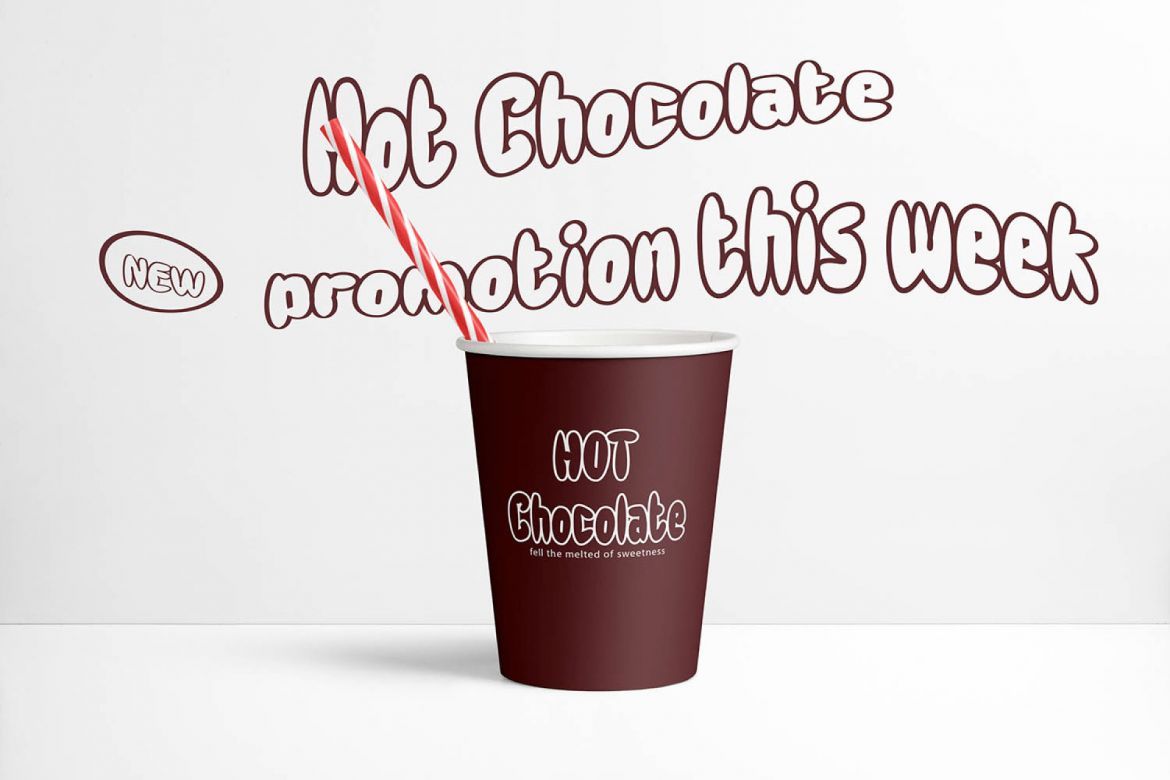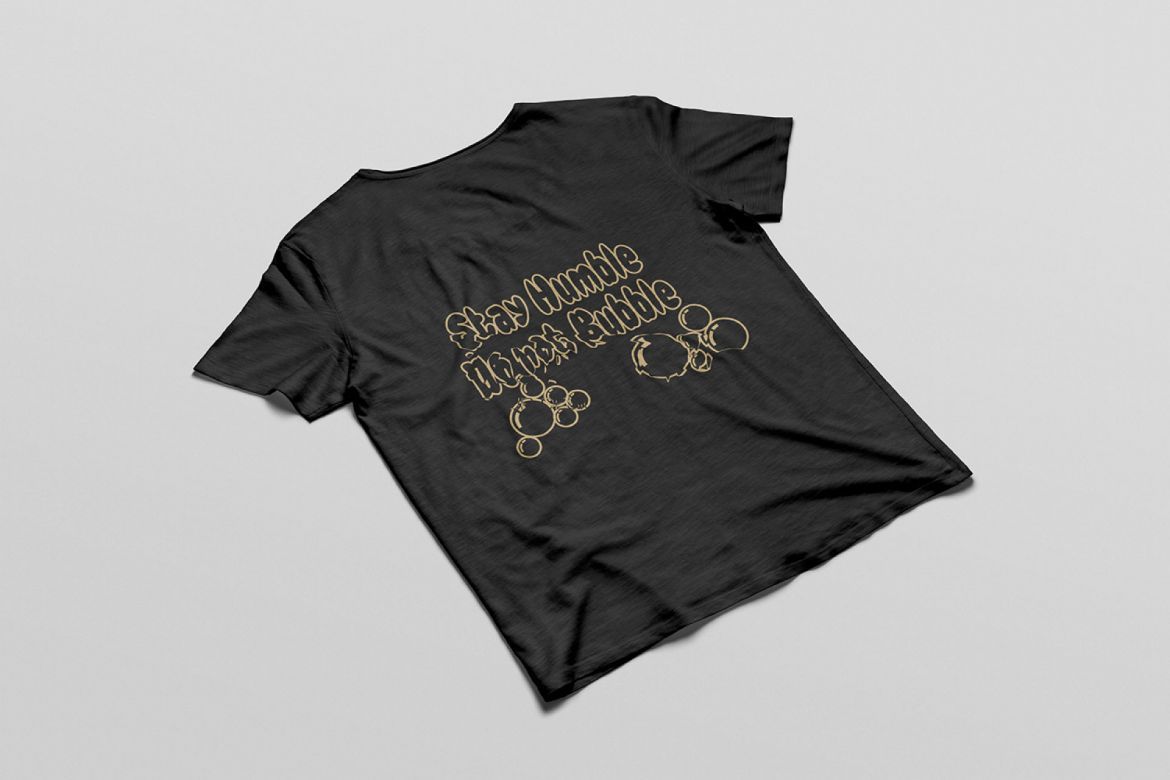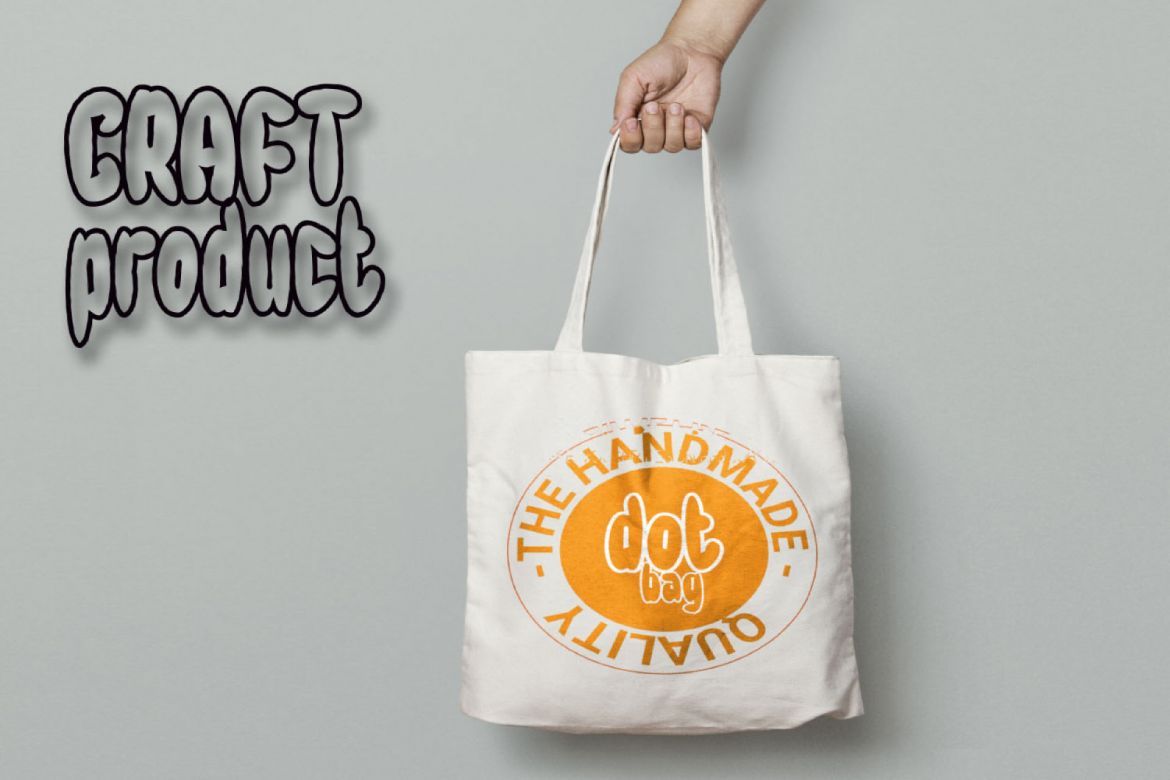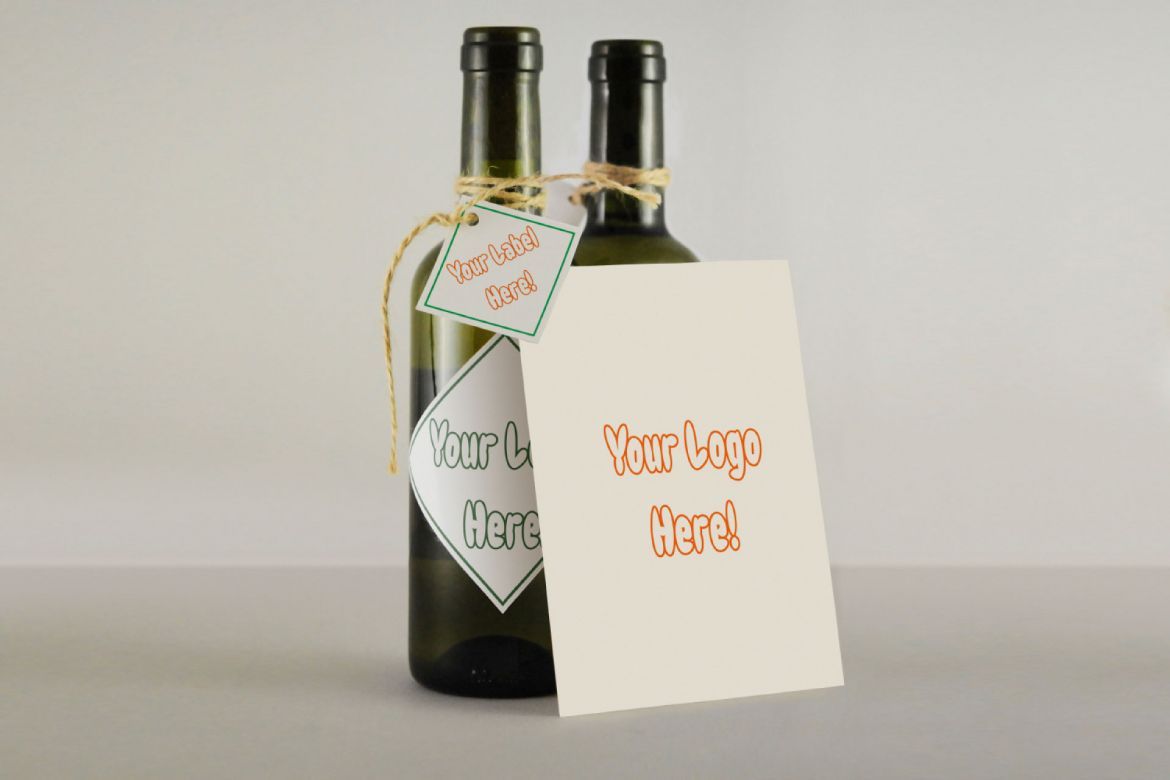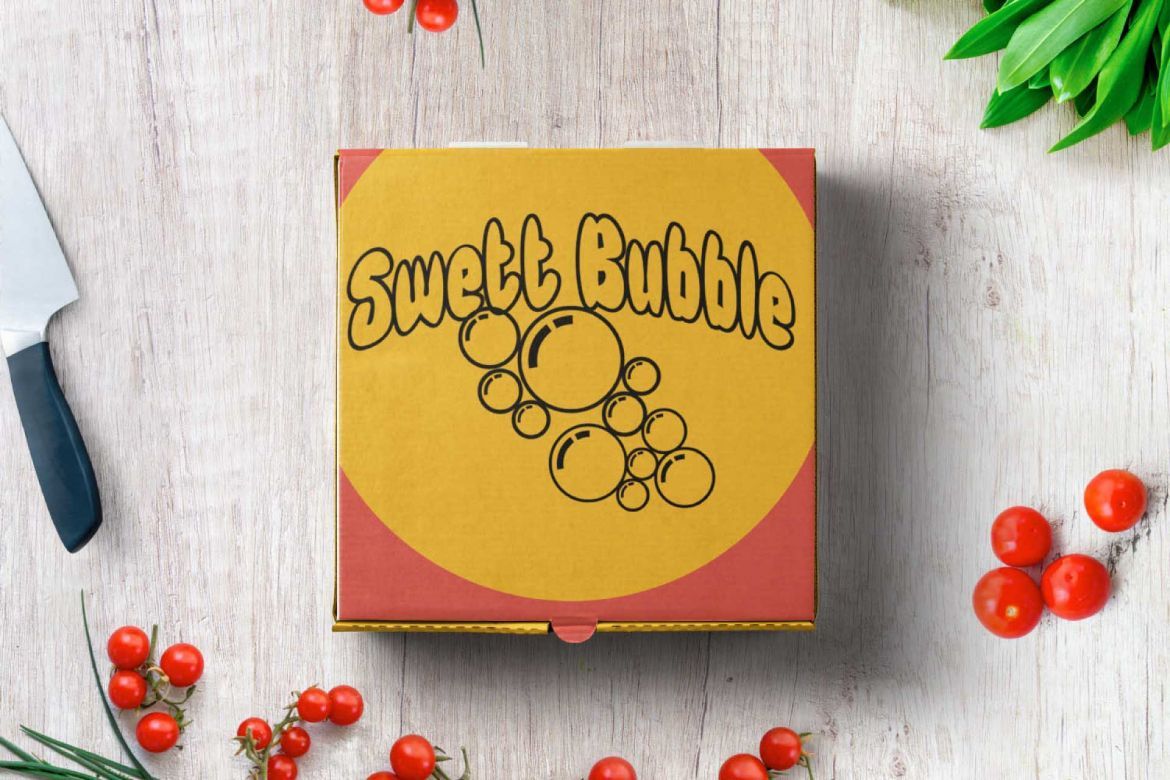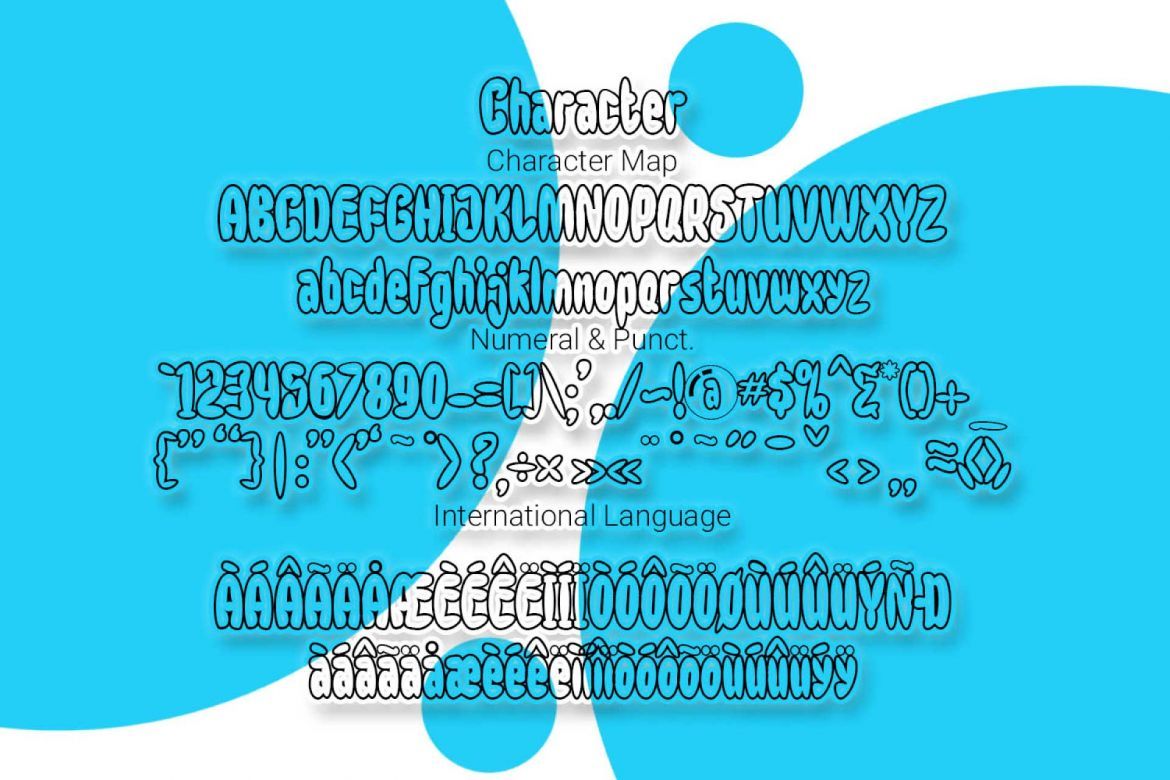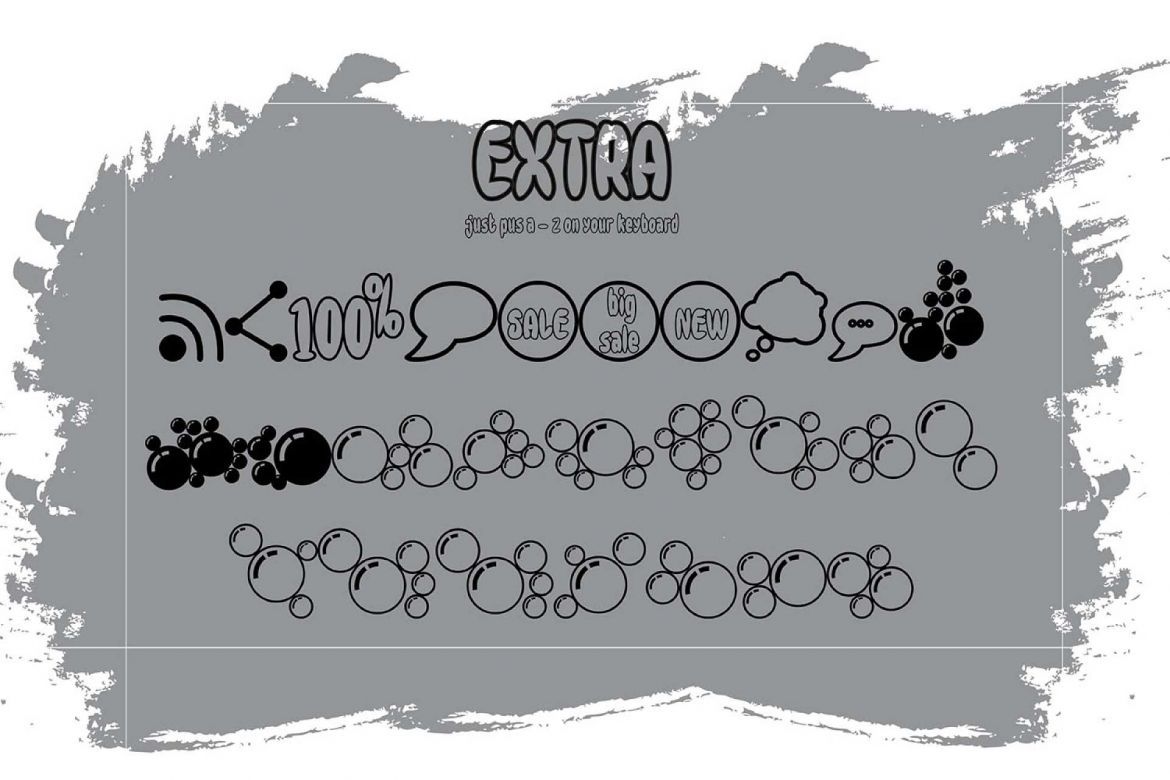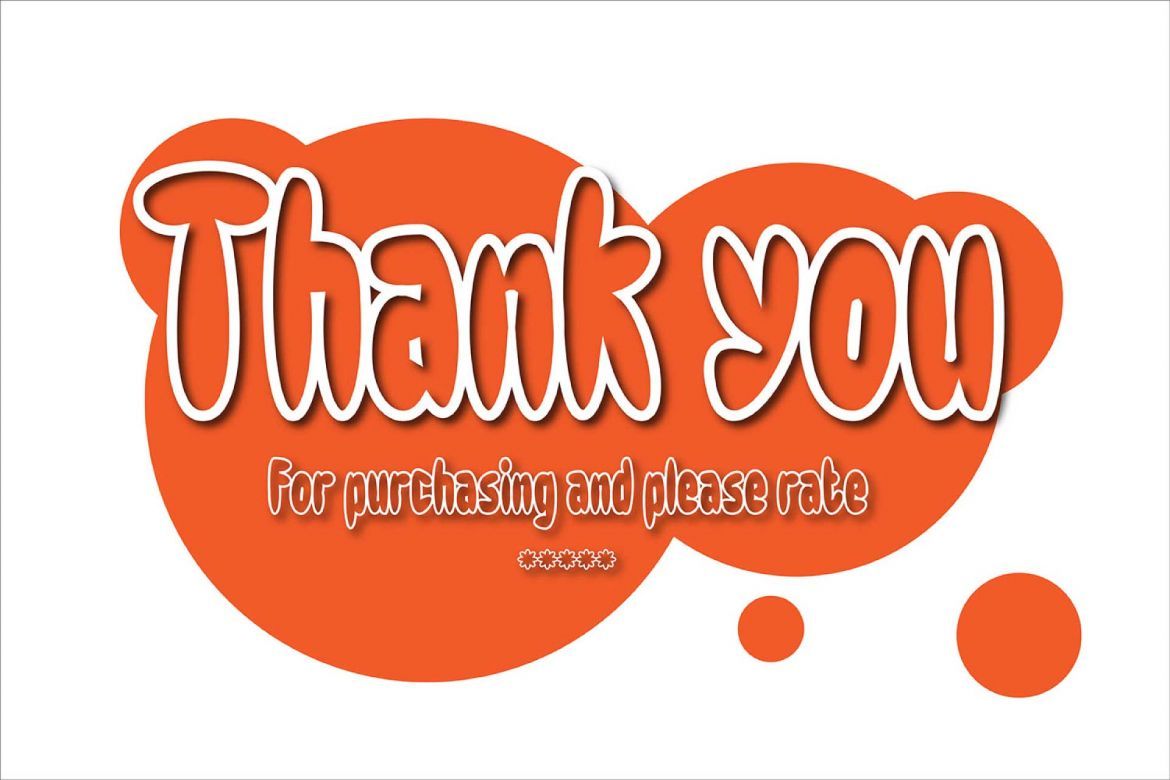
Sweet Bubble Font
Happy Introduce The Sweet Bubble Font
The Sweet Bubble Font features bold outlines. It suits websites, prints, and cartoon posters. Add flavour to your projects using bubble fonts of your preference. These bubble fonts of different sizes and shapes.
This font very playful and suitable for greeting cards, branding materials, business cards, quotes, posters, and typography, printable products, phone cases, mugs, books, t-shirts, wallpapers and especially for the baby industry, everything you want to bubbling.
Extra Font includes 26 hand-drawn baby illustration which you can type out using the characters a-z, A-Z.